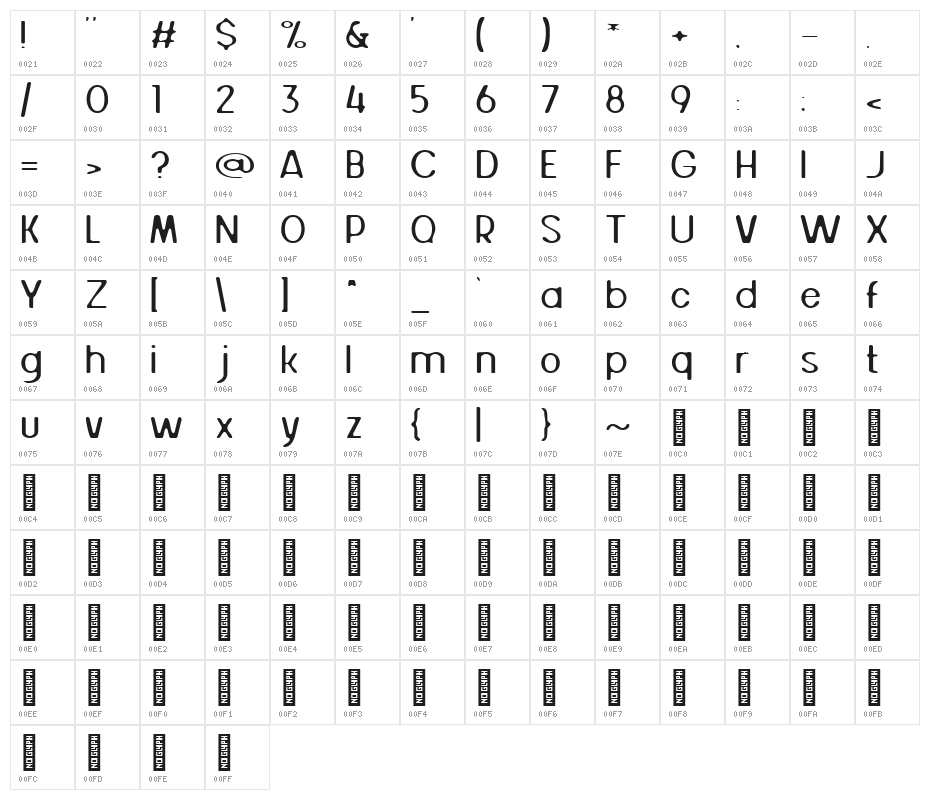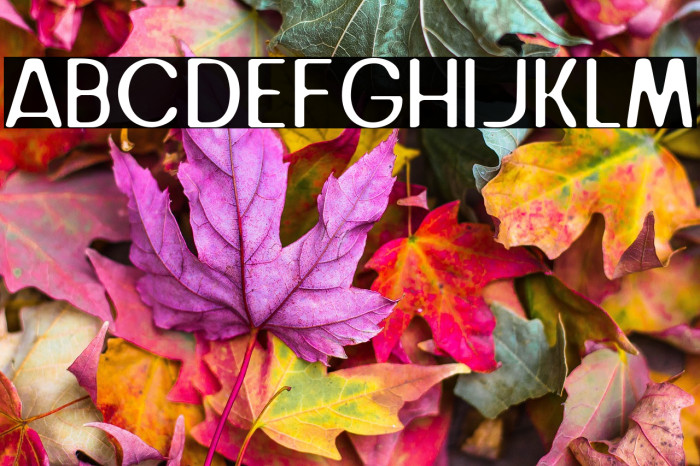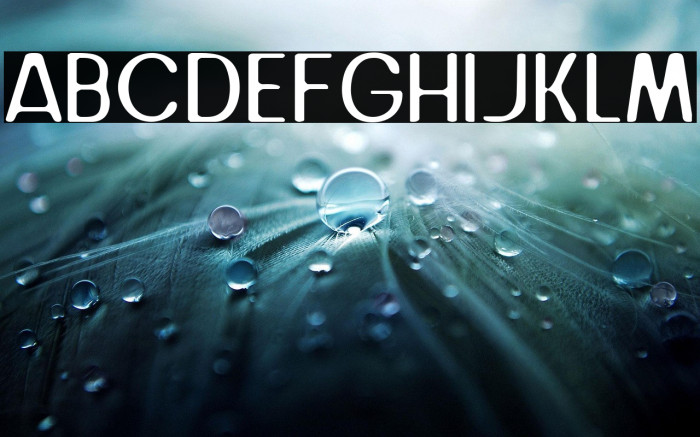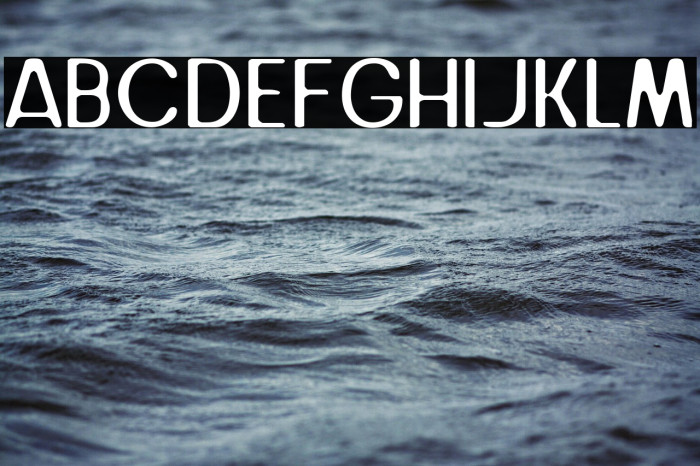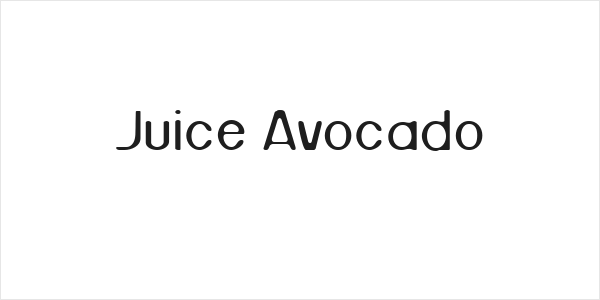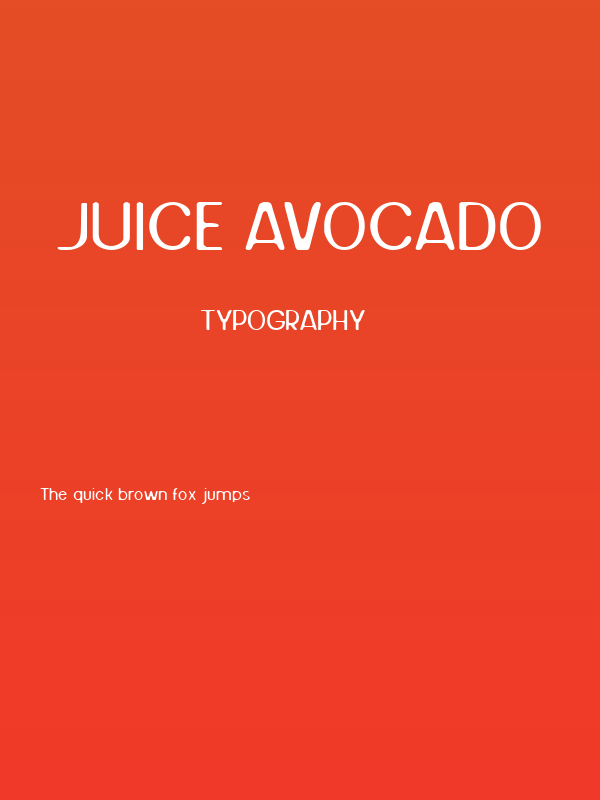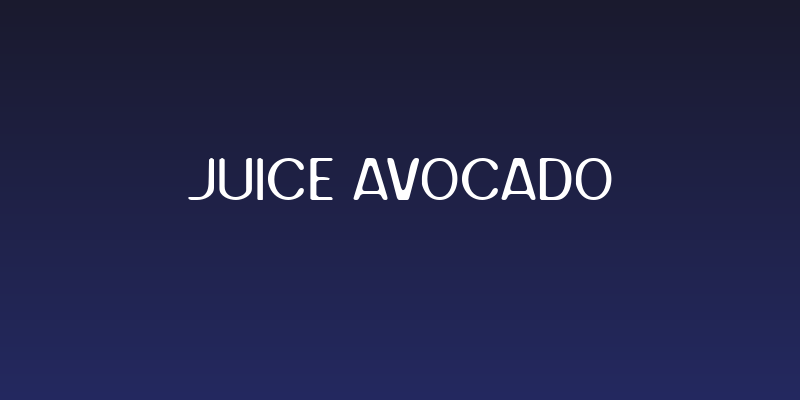
Juice Avocado Font
Juice Avocado Description
This font features a playful and rounded style, characterized by its smooth curves and friendly appearance. The letters are bold and slightly condensed, giving them a modern and approachable look. The uppercase letters maintain a consistent height, while the lowercase letters have a gentle, flowing quality. The numerals are clear and easy to read, with a uniform thickness that matches the letters. Special characters are designed with the same rounded edges, ensuring a cohesive look across all glyphs. This font is ideal for projects that require a warm and inviting aesthetic.